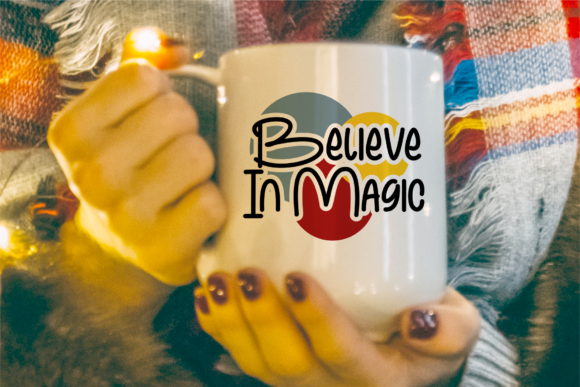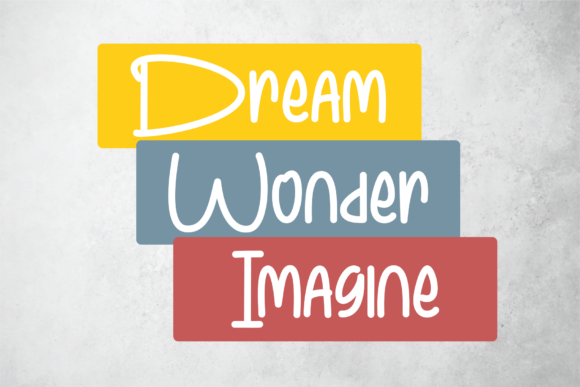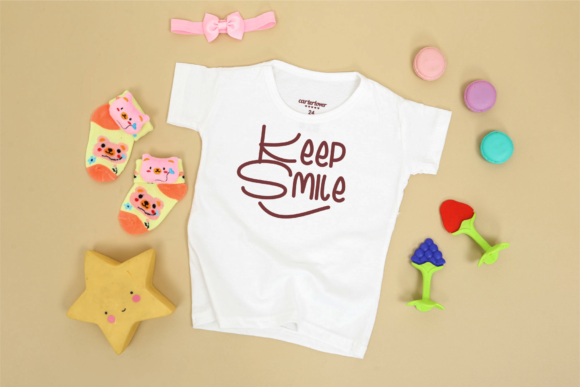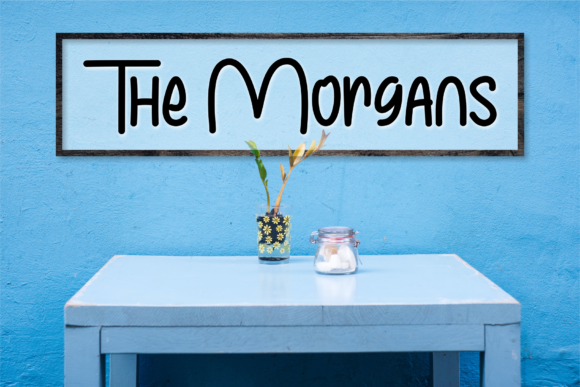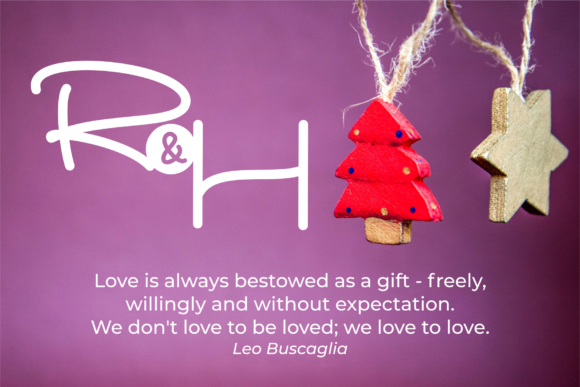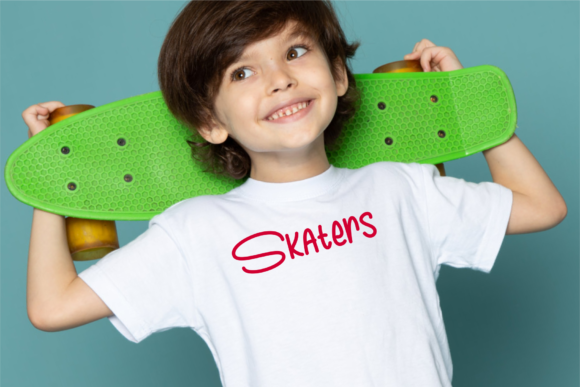
Introduction to Peach Blossum Font
Have you ever found yourself staring at a blank page, searching for the perfect font to bring your creative project to life? It’s that moment of frustration when you stumble upon a hidden gem that makes everything click into place. For designers and creatives, discovering a high-quality font can be a game-changer.
One such treasure is the Peach Blossum Font, a playful and cute handwritten font that’s perfect for children-themed designs. Its whimsical charm and delicate strokes make it an instant favorite among designers looking for a unique design resource.
Key Features of Peach Blossum Font
- Characterized by its elegant and delicate style, reminiscent of peach blossoms, making it perfect for spring-themed designs or projects with a feminine touch.
Honest Review: Peach Blossum Font
I recently stumbled upon the Peach Blossum Font, and I’m excited to share my thoughts on this design resource. The first thing that caught my attention was its beautiful, hand-drawn style, which makes it perfect for creative projects that require a touch of whimsy.
One of the standout features of the Peach Blossum Font is its high quality. The font is crisp and clear, even when used on a transparent background, which is a must for many designers. The font also comes in a range of weights and styles, making it easy to customize to suit your design needs.
Here are some of the things that work well with the Peach Blossum Font:
- ✨ Beautiful, hand-drawn style that adds a touch of elegance to any design
- ✨ High quality, making it perfect for use on transparent backgrounds
- ⚠️ Limited language support, which may be a concern for designers who work with non-English clients
- ⚠️ Not suitable for use in formal or corporate designs, due to its playful nature
Overall, I’m impressed with the Peach Blossum Font. It’s a great addition to any designer’s toolkit, and I highly recommend it for creative projects that require a touch of personality.
The Peach Blossum Font is a beautiful, high-quality design resource perfect for any creative project. With its elegant and delicate style, it’s ideal for adding a touch of sophistication to your designs.
The Peach Blossum Font is perfect for wedding invitations, birthday cards, and other special occasions. It’s also great for branding and marketing materials, such as business cards and brochures.
To get the most out of the Peach Blossum Font, use it in conjunction with other design elements, such as flowers and greenery, to create a cohesive and elegant look. Experiment with different font sizes and colors to add visual interest to your design.